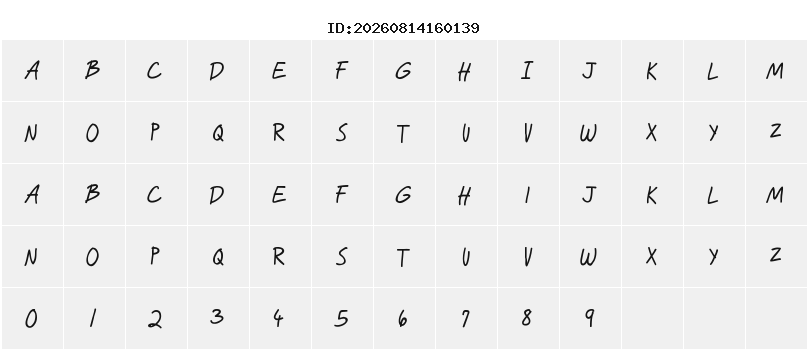
Story Strip Preview
• Font Name: Story Strip
• Full Font Name: Story Strip
• Designer: Dan P. Lyons
About Story Strip.ttf
Story Strip.ttf is a modern, elegant sans-serif font designed for ultimate readability and visual harmony. Perfect for branding, headlines, web design, and print materials.